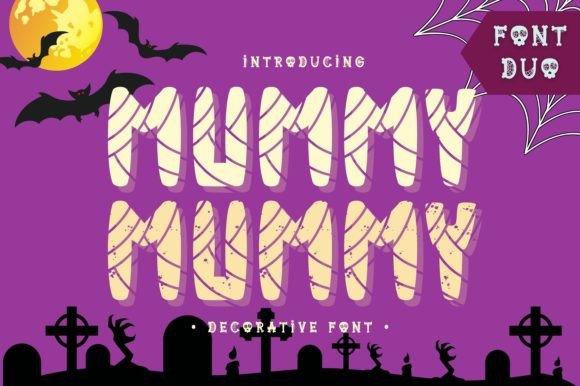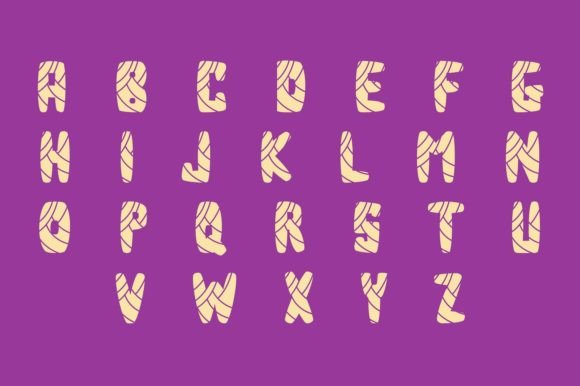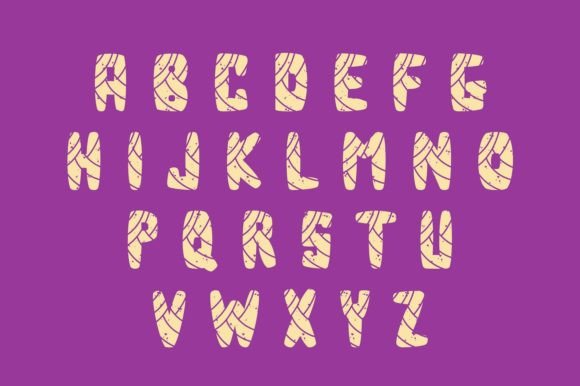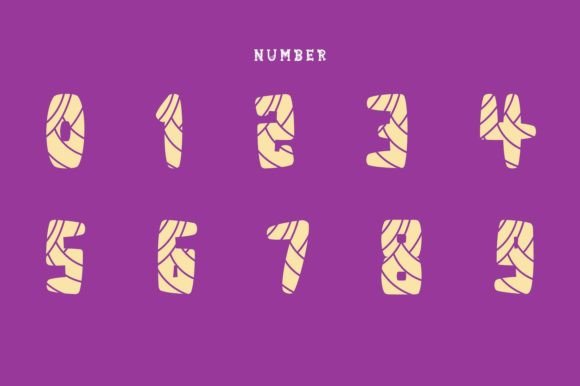
Mummy Font
About the Mummy Font
The wait is over! The incredible Mummy Font is now available for your design toolkit. Mummy is a scary and fun decorative font. It embodies playfulness and authenticity and is the perfect choice for all your favorite Halloween projects, or even for blog posts, logos, branding, ads, invitations, greeting cards, planners, photo albums, decorations, and much more. Add it to any of your designs, and enjoy the results!
Mummy Font’s playful yet spooky aesthetic makes it ideal for Halloween-themed projects, branding for businesses with a fun, slightly macabre vibe (think candy shops or haunted attractions), and eye-catching headlines. It also works well on posters, invitations, and short-form text applications where its decorative nature is an asset.
However, its highly stylized forms and varying letter widths make it unsuitable for body text or long paragraphs; readability suffers considerably at smaller sizes. Avoid using it in UI contexts or anywhere requiring high legibility.
Pair Mummy Font with a clean sans-serif like Open Sans for contrast and readability in projects using both display and body text. For a more vintage feel, a serif like Playfair Display would create a sophisticated juxtaposition. A simple, geometric sans-serif could also work well to ground the font’s playful energy.
Mummy Font Usage Examples
Mummy Font Example